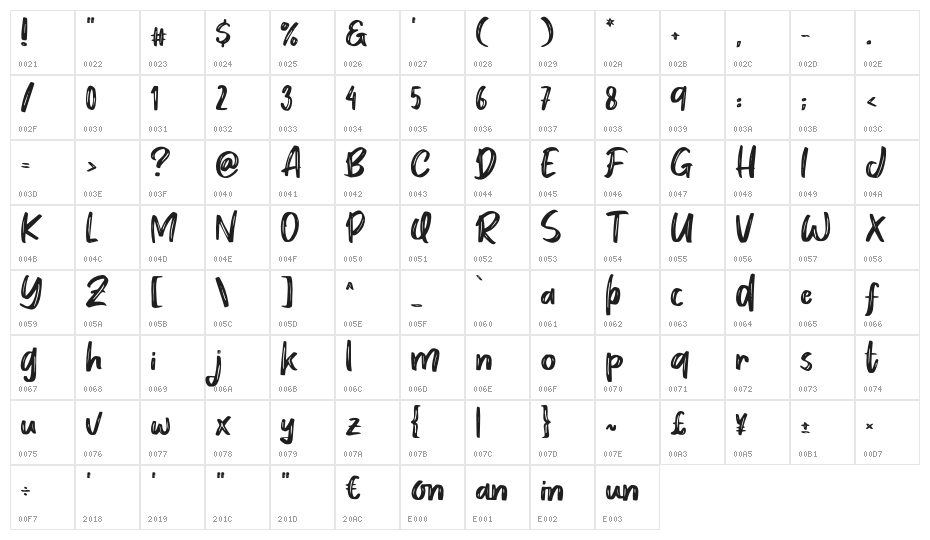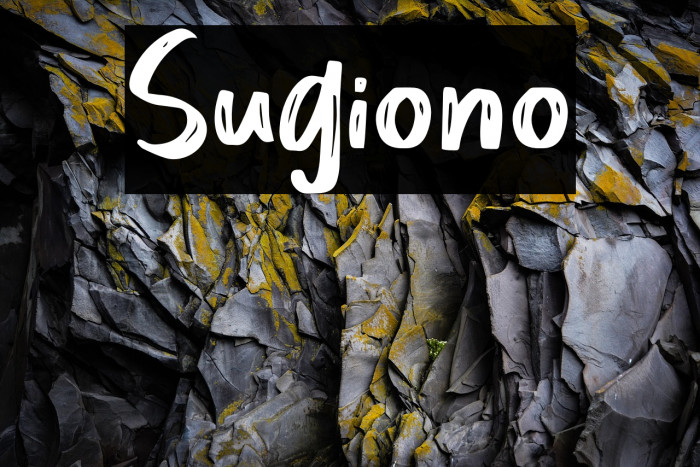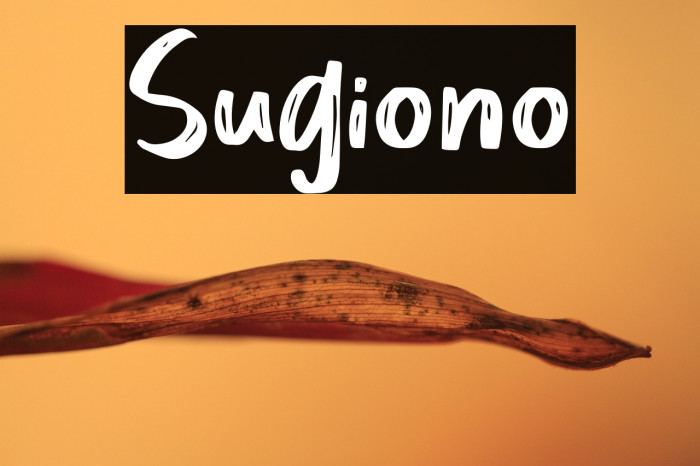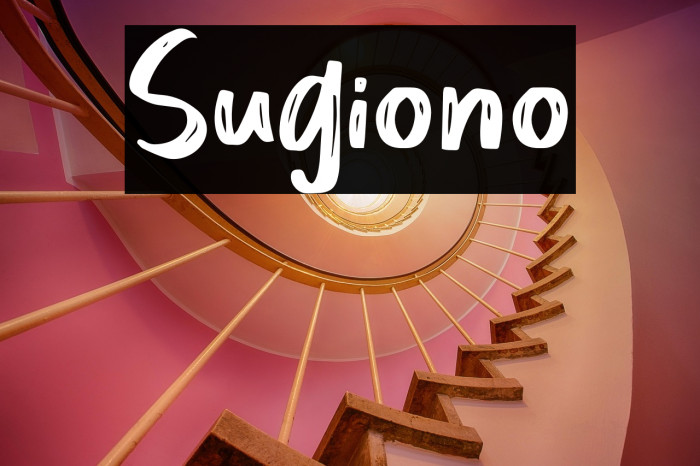
Sugiono Font
Sugiono Description
This font exhibits a bold, expressive style with a handwritten appearance. The letters are characterized by their thick strokes and dynamic curves, giving a sense of movement and energy. The uppercase and lowercase letters maintain a consistent style, with some letters featuring unique, playful twists. The numbers and special characters are equally bold, ensuring readability and impact. This font's overall aesthetic is casual yet assertive, making it suitable for projects that require a personal touch.
Proposed ProjectsIdeal for branding, posters, social media graphics, and any project requiring a bold, personal touch.